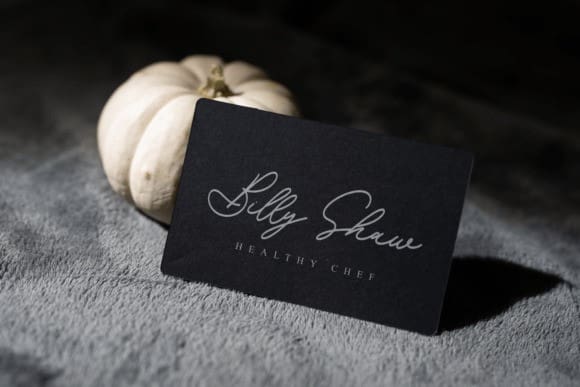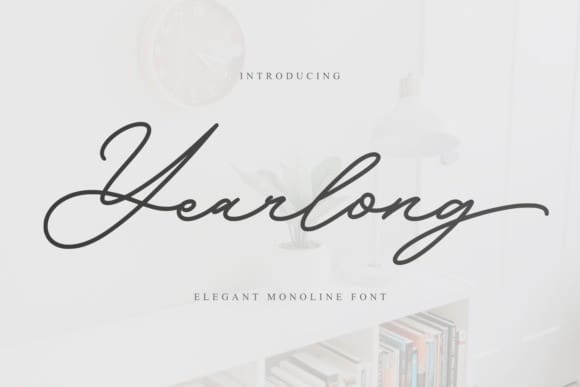
Yearlong Script Font
Yearlong Script Font, is an elegant and classy handwritten font with a monoline style. Add it to your logos, labels, branding, invitations, websites, quotes, and more, and it will boost your designs and make them a true standout!